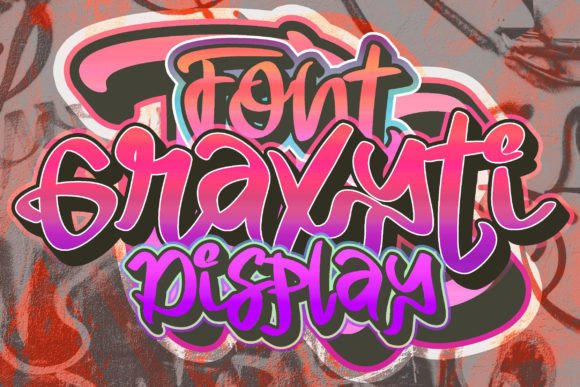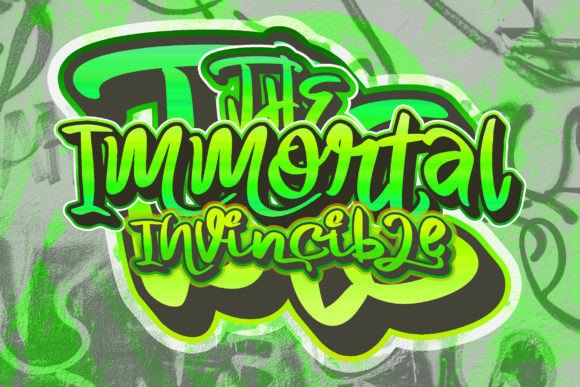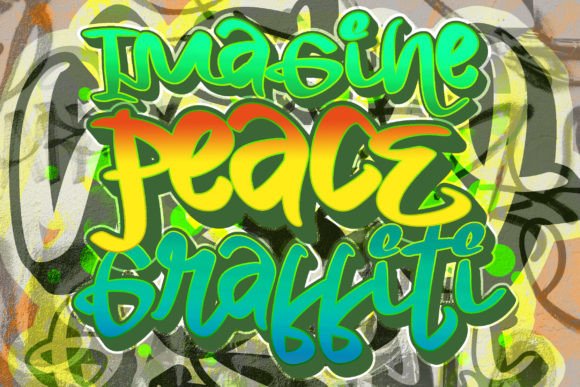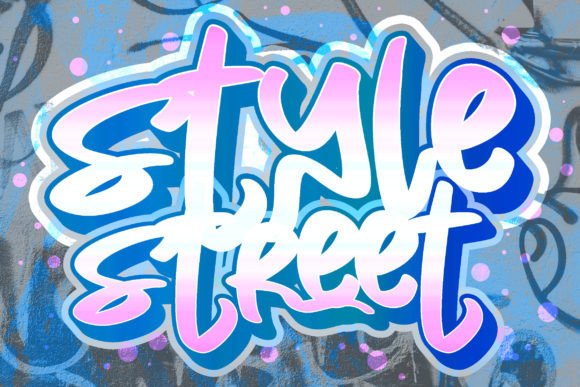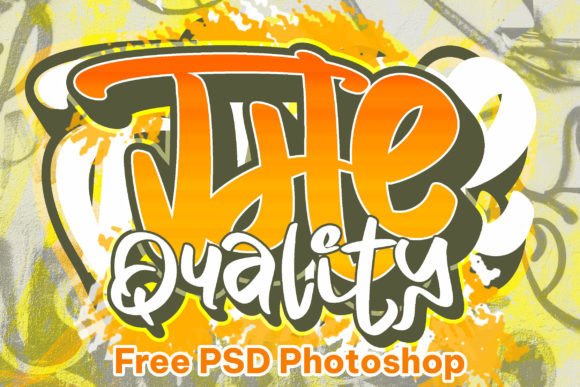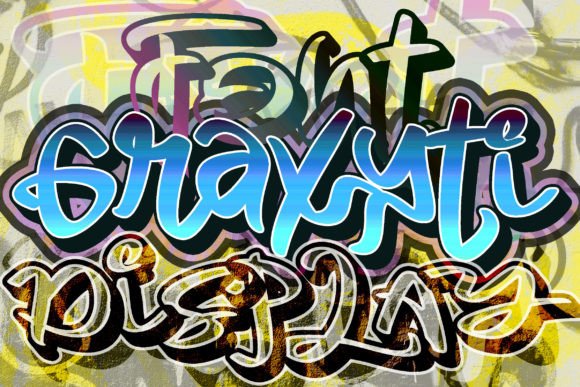
Introducing Graxyti Font: The Ultimate Graffiti Experience for Designers and Crafters
Are you a designer, crafter, or artist looking for a font that can add a touch of urban elegance to your projects? Look no further than Graxyti Font, a very elegant and unique graffiti font that is sure to make a statement. In this article, we’ll dive into the features and benefits of Graxyti Font, and explore how it can elevate your designs to the next level.
What is Graxyti Font?
Graxyti Font is a carefully crafted graffiti font that boasts a distinctive and stylish aesthetic. Its elegant and unique design makes it perfect for a wide range of applications, from street art to commercial design. Whether you’re looking to create eye-catching logos, t-shirt designs, or stickers, Graxyti Font is the perfect choice.
Key Features of Graxyti Font
So, what sets Graxyti Font apart from other fonts? Here are some of its key features:
- Uppercase and Lowercase Letters: Graxyti Font includes both uppercase and lowercase letters, giving you the flexibility to create a wide range of designs.
- Numerals and Punctuation: The font also includes numerals and punctuation marks, making it a comprehensive solution for all your design needs.
- Multilingual Support: With Graxyti Font, you can create designs in multiple languages, making it perfect for global brands and designers.
Use Cases for Graxyti Font
Graxyti Font is an incredibly versatile font that can be used in a variety of contexts. Here are some ideas to get you started:
- Street Art: Use Graxyti Font to create stunning street art that showcases your unique style and creativity.
- T-Shirt Designs: Design eye-catching t-shirts that stand out from the crowd with Graxyti Font.
- Logo Design: Create memorable logos that make a statement with Graxyti Font’s bold and elegant design.
- Stickers and Decals: Use Graxyti Font to create stickers and decals that are sure to grab attention.
- Tattoo Designs: Design unique and stylish tattoos with Graxyti Font’s graffiti-inspired style.
- Bag Designs: Add a touch of urban elegance to your bag designs with Graxyti Font.
Why Choose Graxyti Font?
So, why should you choose Graxyti Font for your next project? Here are just a few reasons:
- Unique Style: Graxyti Font offers a unique and stylish aesthetic that is sure to make your designs stand out.
- Elegant Design: The font’s elegant design makes it perfect for a wide range of applications, from street art to commercial design.
- High Versatility: With its comprehensive character set and multilingual support, Graxyti Font is an incredibly versatile font that can be used in a variety of contexts.
In conclusion, Graxyti Font is a must-have for designers and crafters looking to add a touch of urban elegance to their projects. With its unique and stylish aesthetic, comprehensive character set, and multilingual support, Graxyti Font is the perfect choice for a wide range of applications. Whether you’re a seasoned designer or just starting out, Graxyti Font is sure to inspire your creativity and take your designs to the next level.